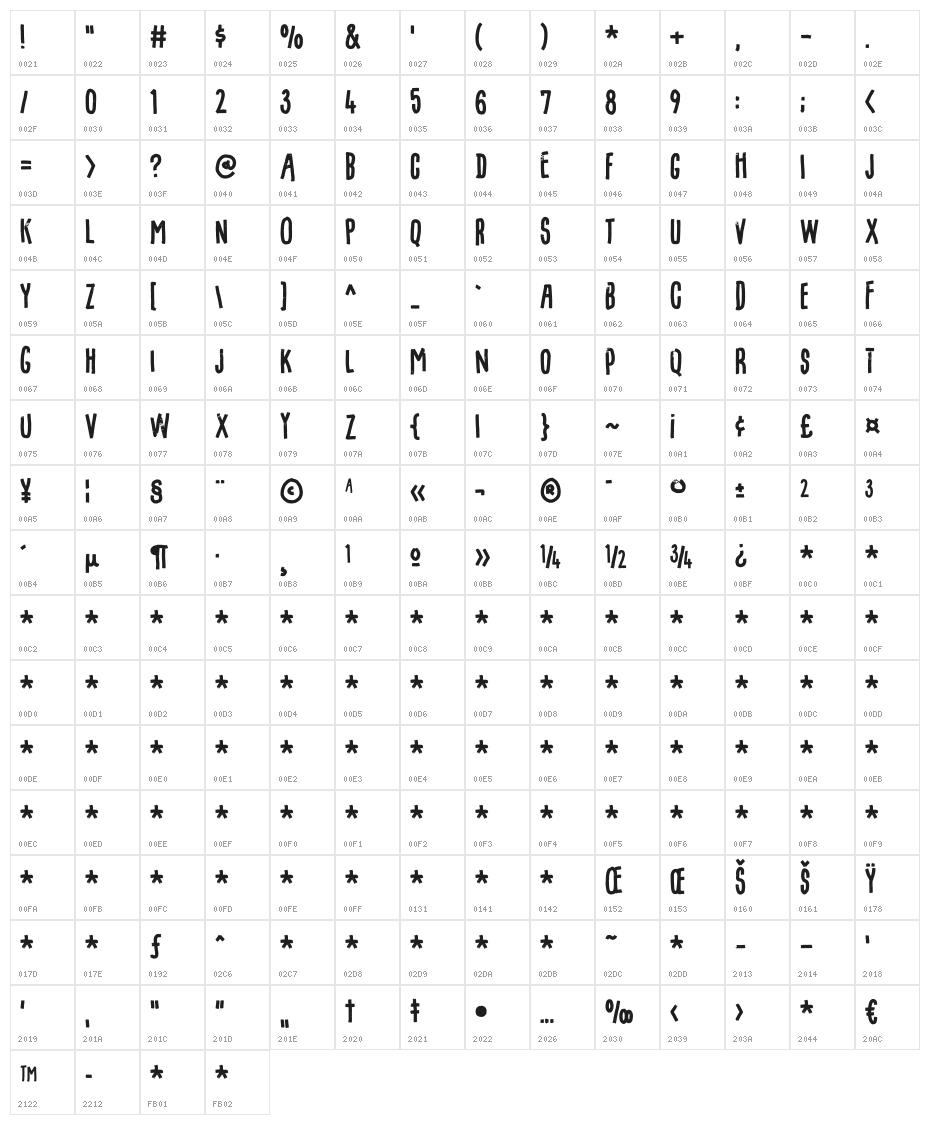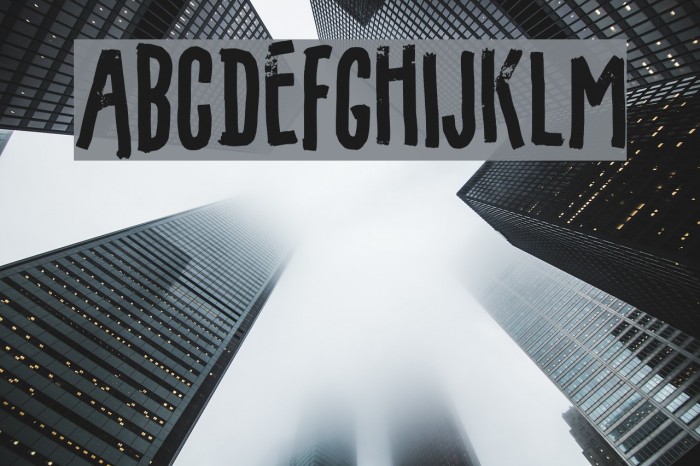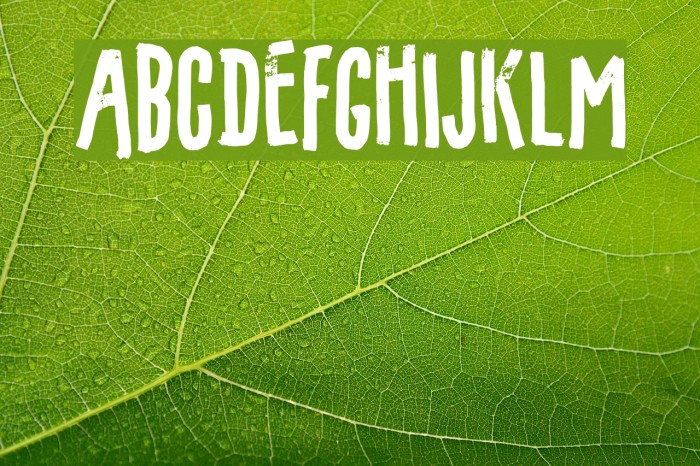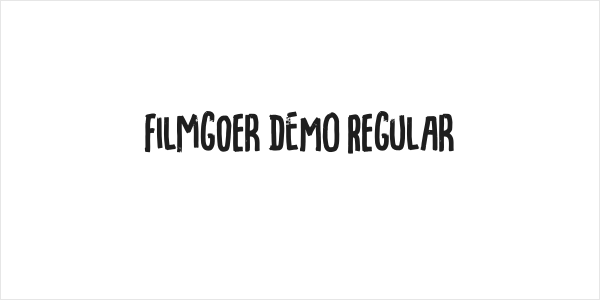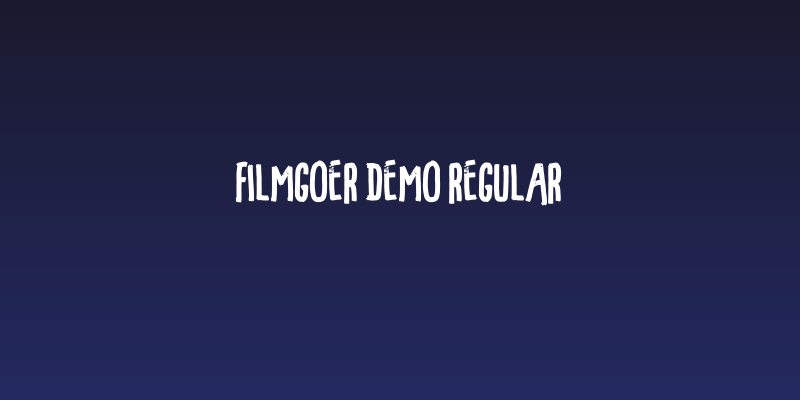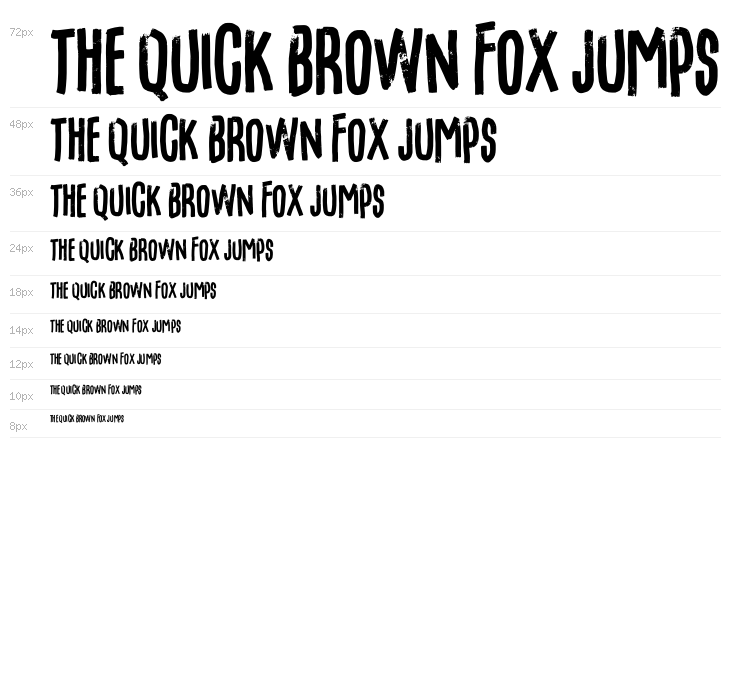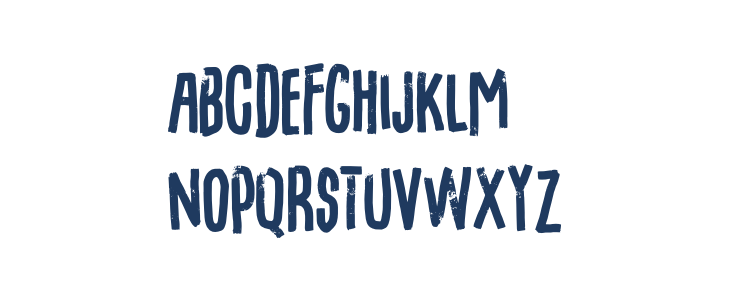
Filmgoer DEMO Regular Font
Filmgoer DEMO Regular Description
This font features a bold and distressed style, reminiscent of vintage movie posters or hand-painted signs. The characters are tall and slightly condensed, with a rough texture that gives them a worn, gritty appearance. The uppercase letters are uniform in height, while the lowercase letters maintain a consistent style, adding to the cohesive look. Numbers and special characters follow the same design, ensuring versatility across different uses. The overall aesthetic is both eye-catching and nostalgic, making it suitable for projects that require a touch of retro flair.
| Proposed Projects | Ideal for movie posters, retro-themed designs, branding, and packaging that require a bold, vintage touch. |